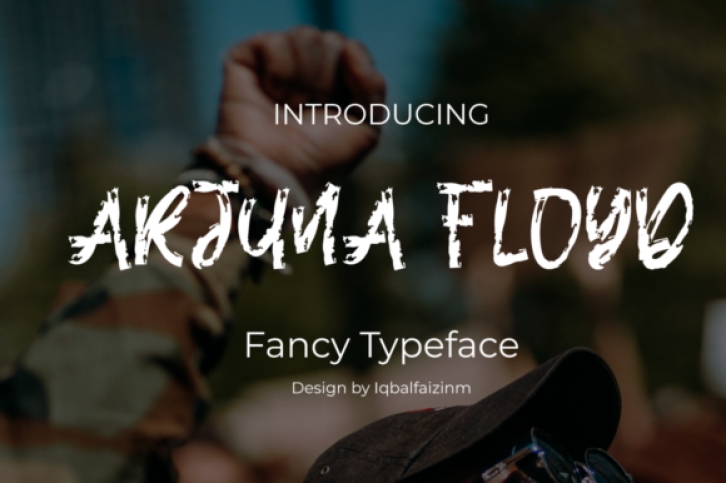
Arjuna Floyd is a bold and chunky display font, created with the help of a brush pen. Incredibly unique, this font will make your creative ideas stand out!